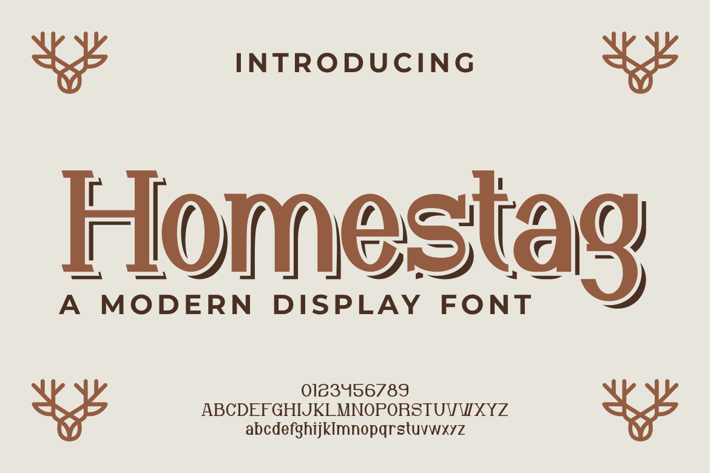
Homestag Font
Introducing our new product Homestag Font - Modern Font
Homestag Font - Modern Font is a bold and authentic display font. The font is suitable for any branding project like logo, t-shirt printing, esport, and many more. outstanding in a wide range of contexts.